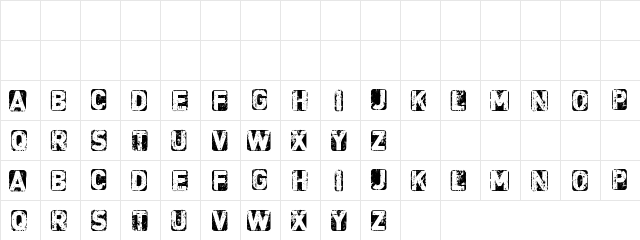
CF Punk is not Dead Regular
| Foundry | CloutierFontes |
| Designer | Steve Cloutier |
CF Punk is not Dead is a composed and adaptable typeface that performs quietly and consistently across a wide range of design contexts.